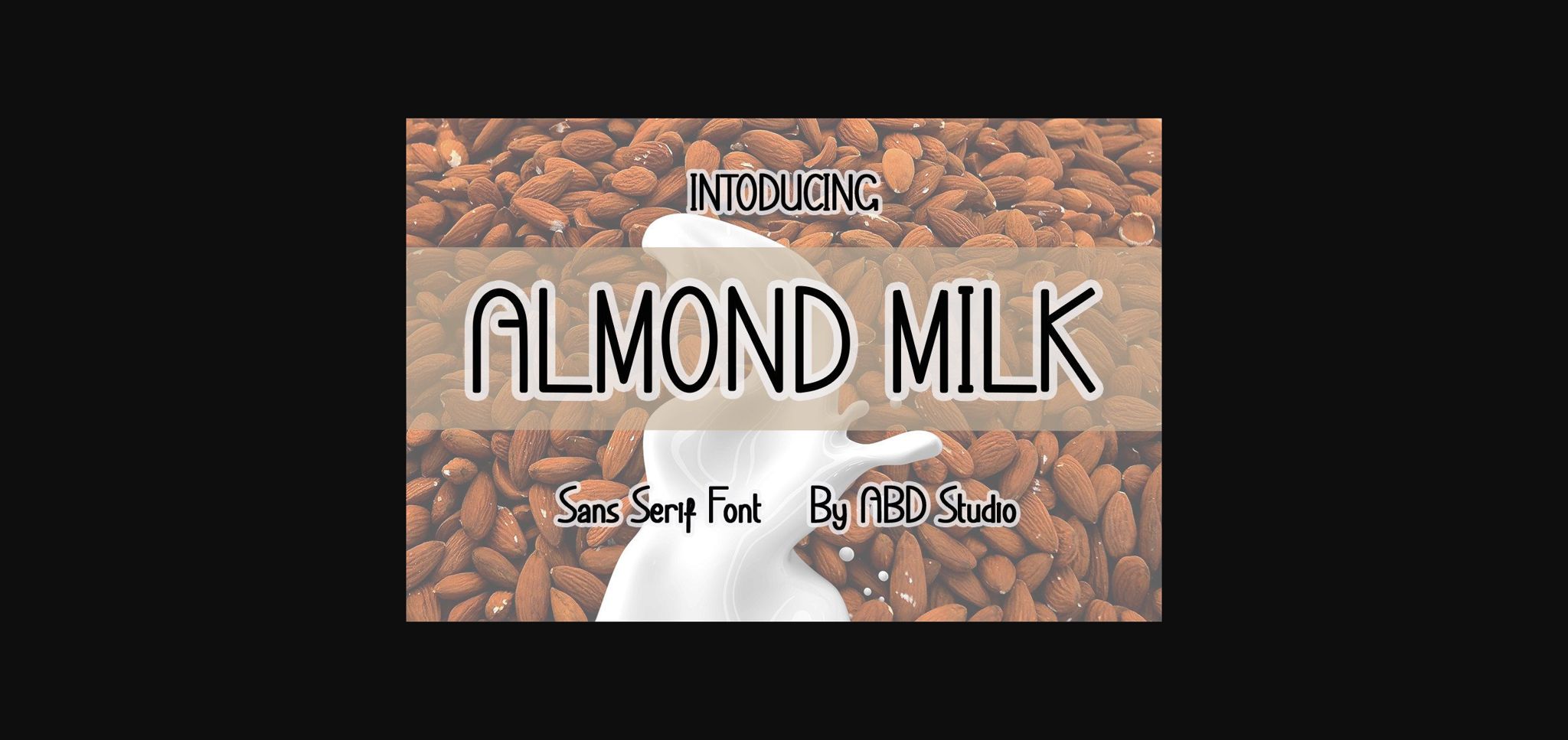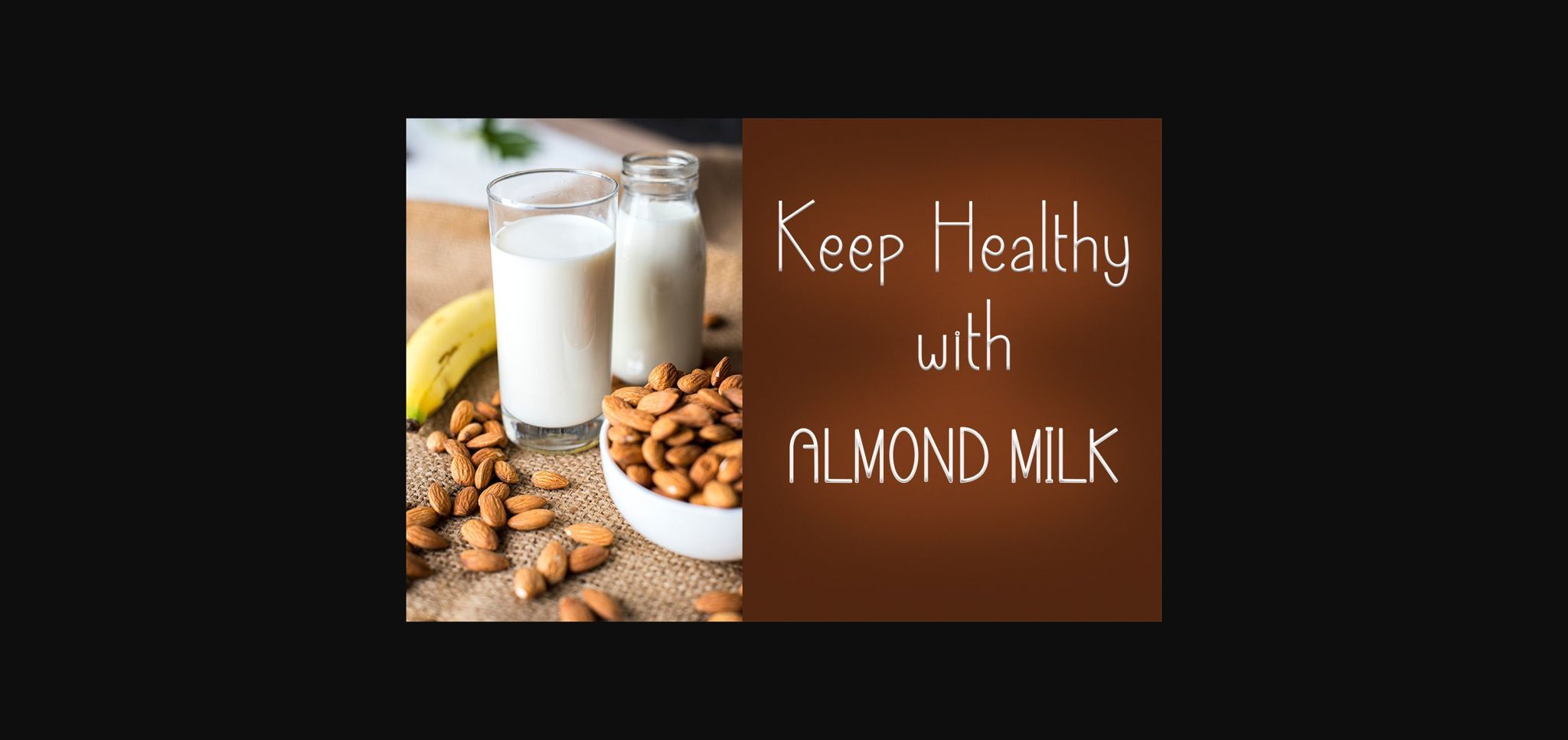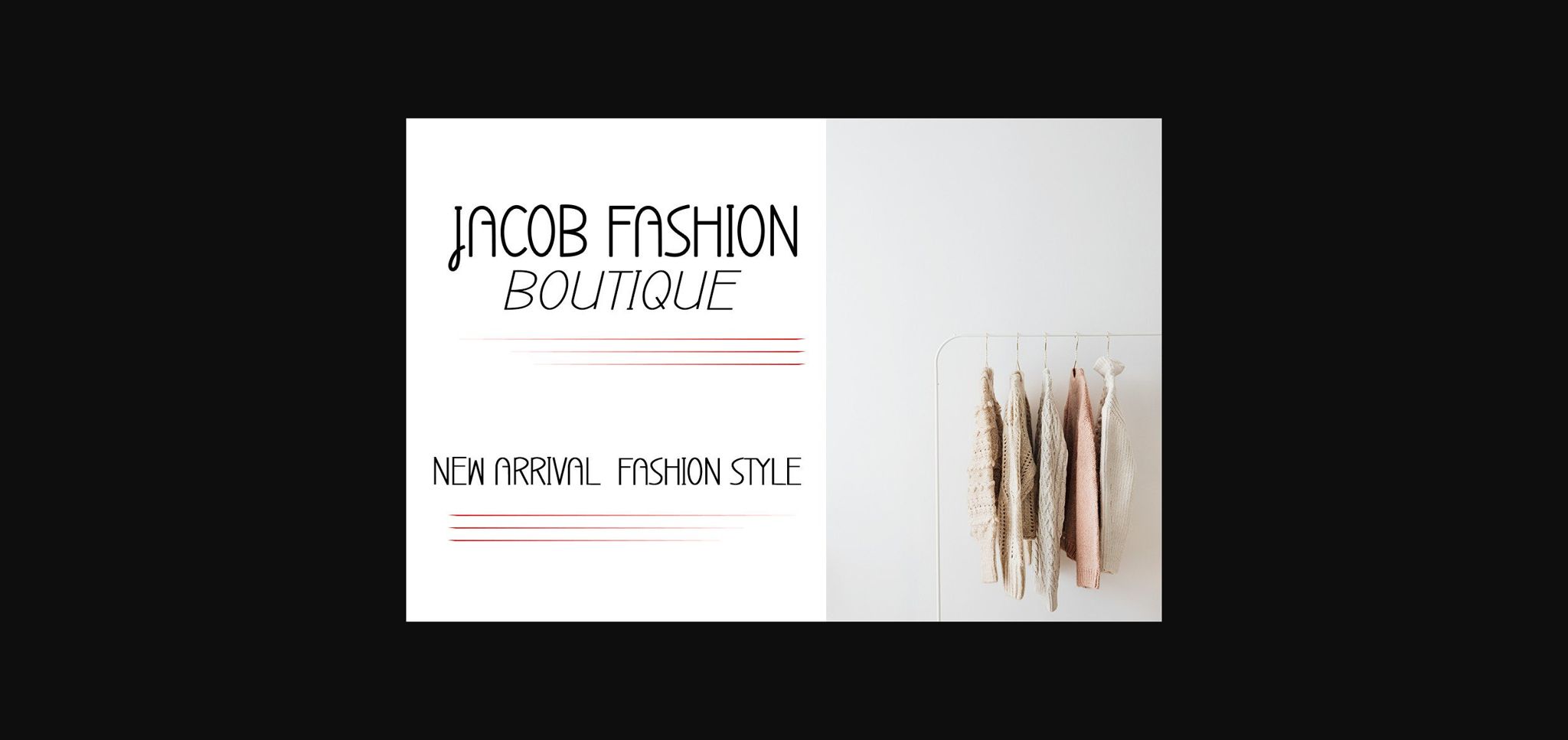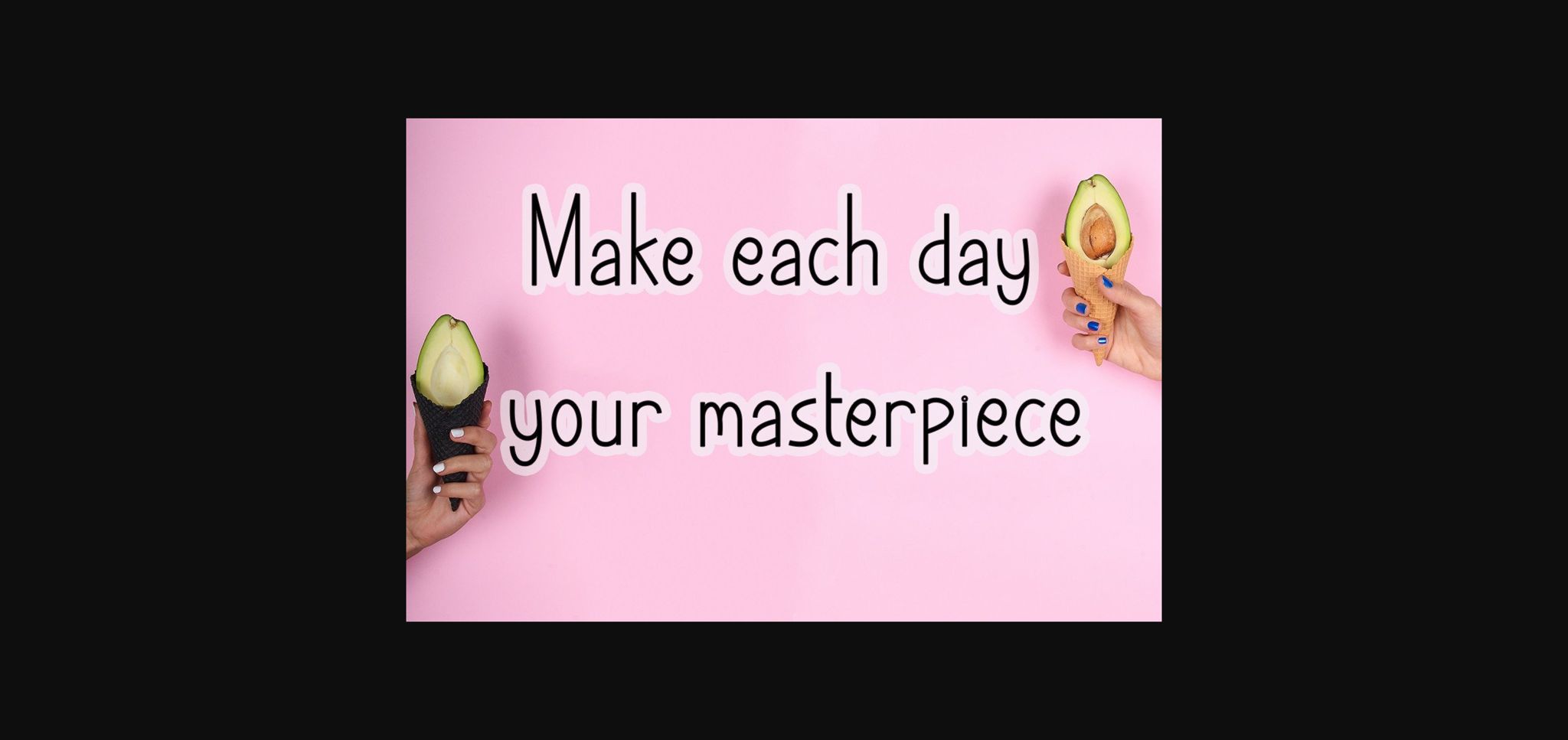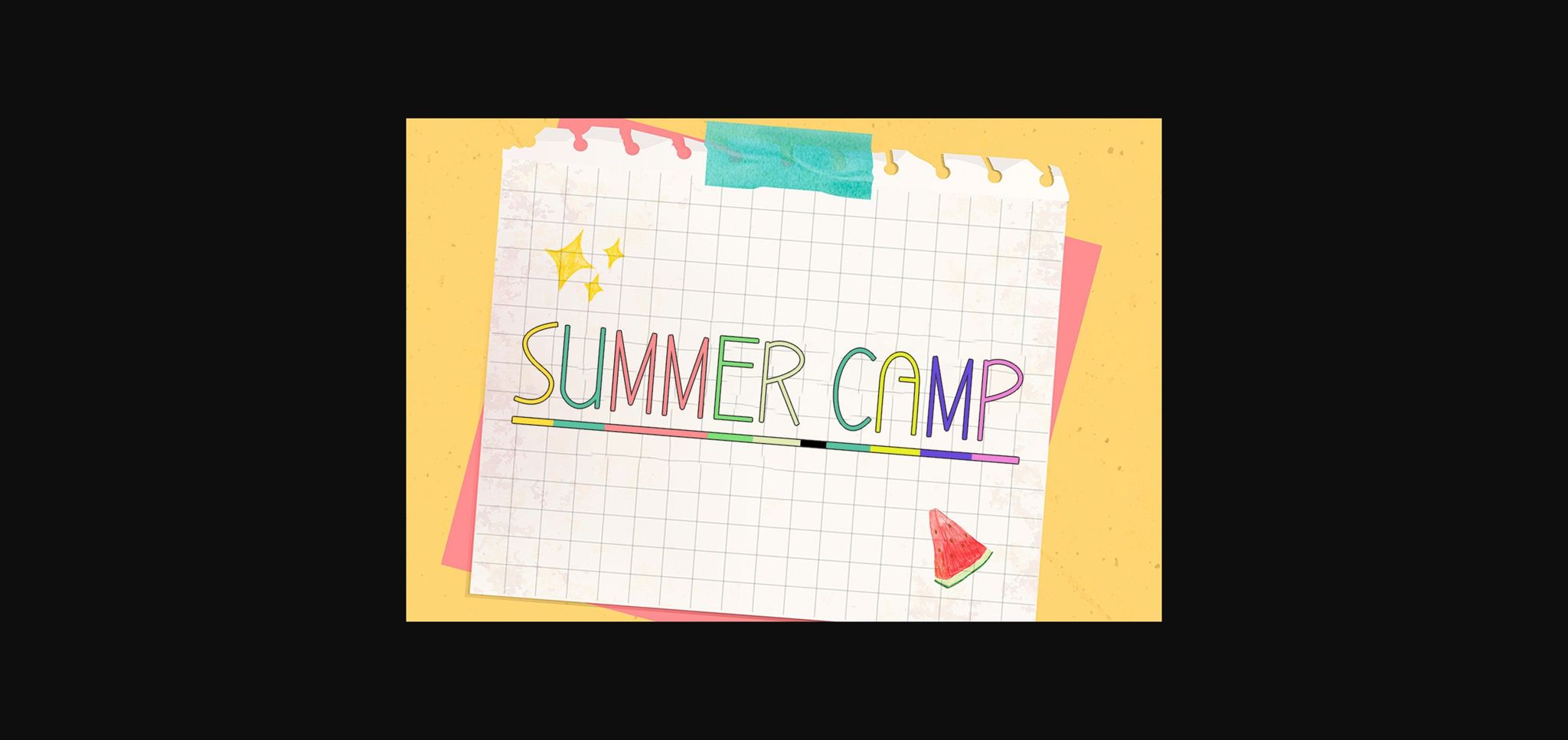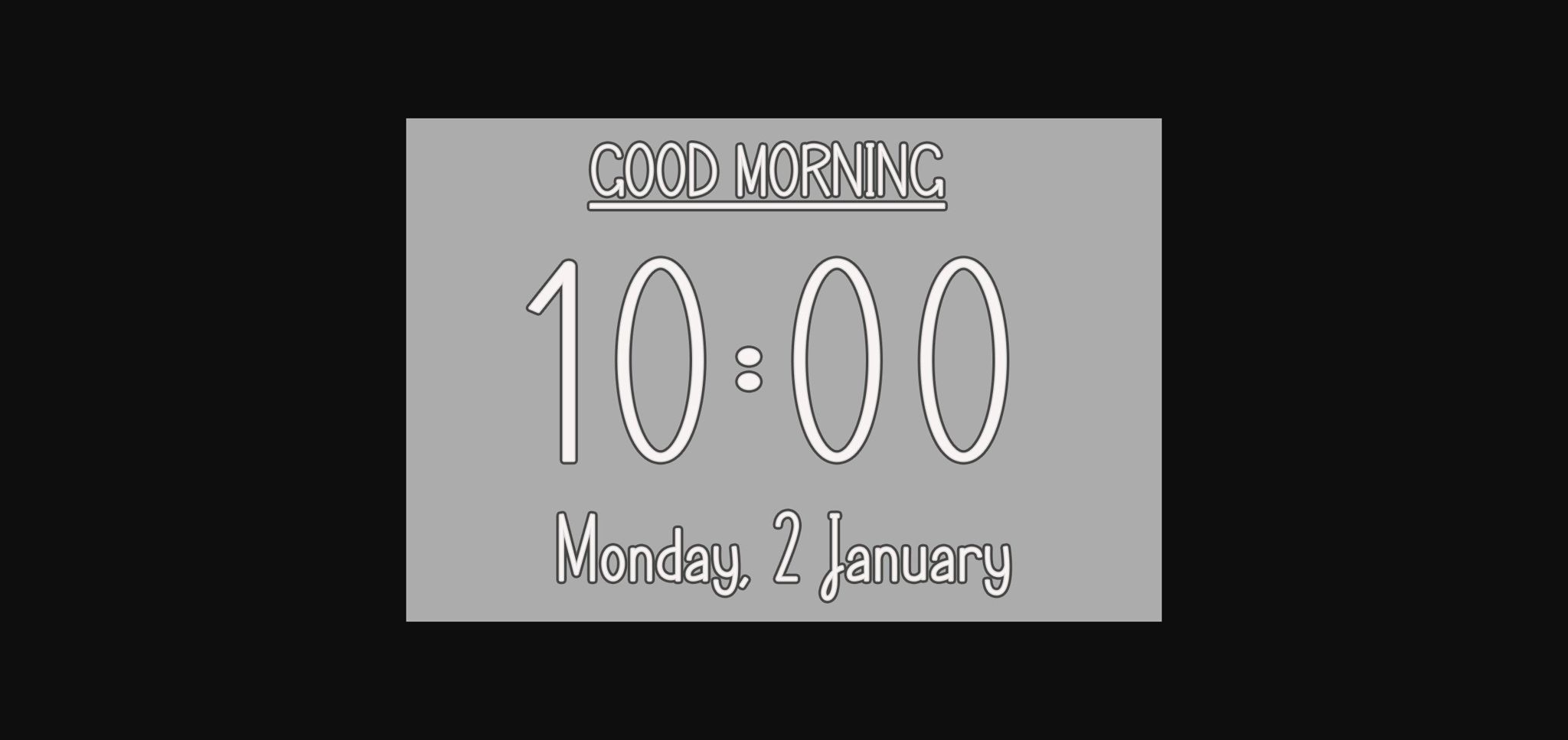
Almond Milk Font
About Almond Milk Font
Almond Milk is a minimalist and neat sans serif font. It can easily be matched to an incredibly large set of projects, so add it to your creative ideas and notice how it makes them stand out!